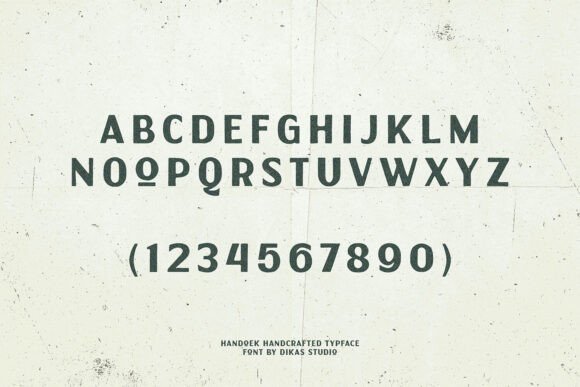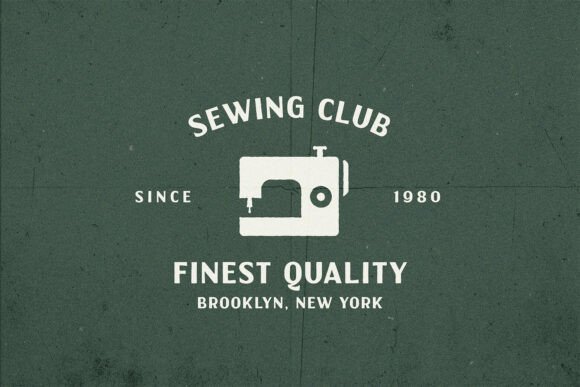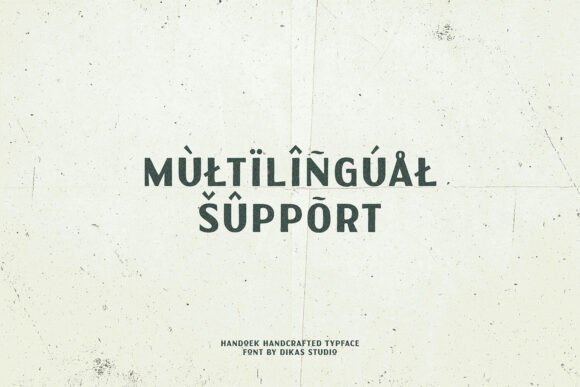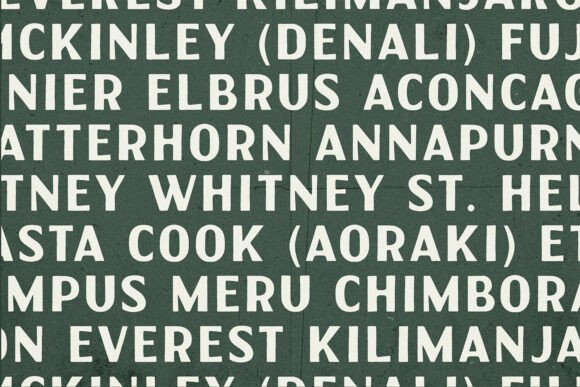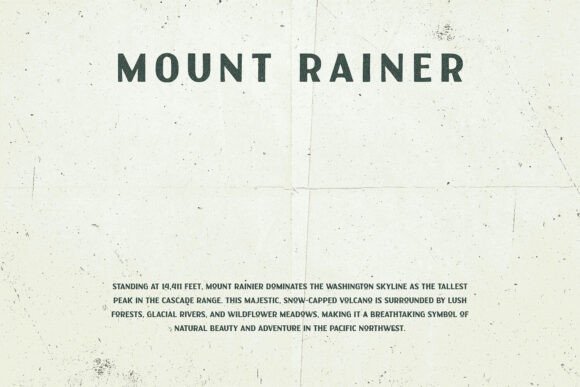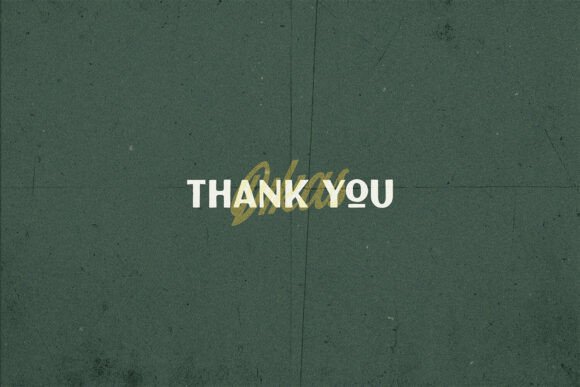
Handoek Font: A Vintage Sans-Serif Font with a Hand-Drawn Soul
In the world of typography, fonts play a crucial role in conveying the tone and aesthetic of a design. For designers and crafters looking to add a touch of nostalgia to their work, the Handoek font is an excellent choice. This sans-serif font boasts a vintage soul, crafted with a hand-drawn, rough texture that exudes authenticity. In this article, we’ll explore the unique features of Handoek and how it can elevate your retro-inspired designs.
The Charm of Handoek Font
Handoek font is a masterfully crafted typeface that embodies the spirit of vintage design. Its hand-drawn, rough texture gives it a distinctive character that sets it apart from other sans-serif fonts. The font’s imperfections and irregularities add a layer of warmth and humanity, making it perfect for designs that require a personal touch.
One of the standout features of Handoek is its ability to evoke the nostalgic essence of 70s posters, badges, labels, and logos. The font’s vintage soul is reminiscent of a bygone era, making it an excellent choice for designers looking to create retro-inspired designs that capture the essence of the 1970s.
Perfect for Retro-Inspired Designs
Handoek font is ideal for a wide range of design applications, from posters and flyers to badges and logos. Its unique texture and vintage charm make it perfect for designs that require a touch of nostalgia. Whether you’re creating a retro-themed advertisement, a vintage-inspired logo, or a distressed-style poster, Handoek font is sure to add character and warmth to your design.
For crafters, Handoek font is a great choice for creating handmade cards, scrapbook pages, and other paper crafts. The font’s hand-drawn texture and vintage charm will add a personal touch to your crafts, making them stand out from the crowd.
Key Features of Handoek Font
- Hand-drawn texture: Handoek font features a unique, hand-drawn texture that gives it a distinctive character.
- Vintage soul: The font’s vintage soul is reminiscent of 70s posters, badges, labels, and logos.
- Sans-serif design: Handoek is a sans-serif font with a clean and modern design.
- Retro-inspired: The font is perfect for retro-inspired designs that require a touch of nostalgia.
- Character and warmth: Handoek font adds character and warmth to your designs, making them stand out from the crowd.
Tips for Using Handoek Font
To get the most out of Handoek font, here are a few tips to keep in mind:
- Use it for headlines: Handoek font is perfect for headlines and titles, where its unique texture and vintage charm can really shine.
- Pair it with other fonts: Experiment with pairing Handoek with other fonts to create a unique and eye-catching design.
- Distress it for effect: Consider distressing the font to add an extra layer of texture and vintage charm.
- Experiment with colors: Handoek font looks great in a range of colors, from bold and bright to muted and pastel.
In conclusion, Handoek font is a unique and versatile typeface that’s perfect for designers and crafters looking to add a touch of nostalgia to their work. Its hand-drawn texture, vintage soul, and sans-serif design make it an excellent choice for retro-inspired designs. With its character and warmth, Handoek font is sure to elevate your designs and make them stand out from the crowd.